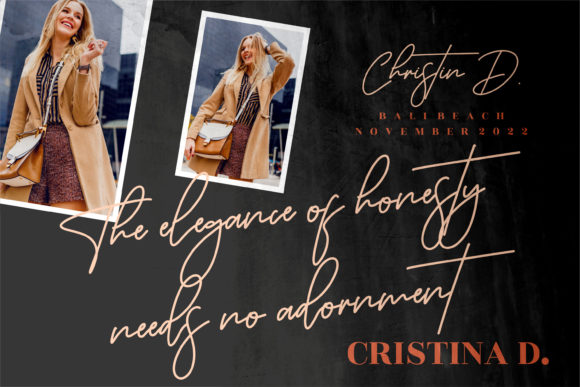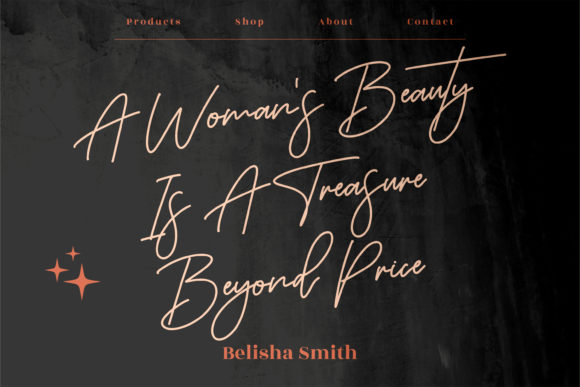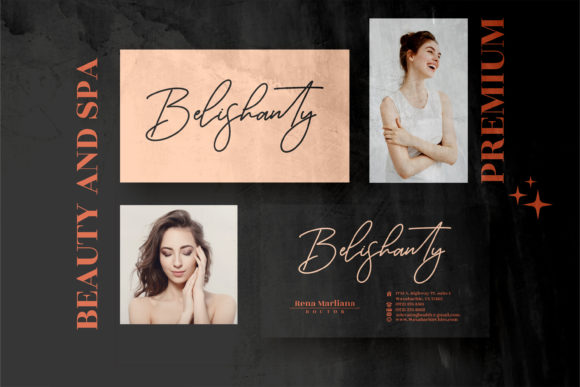
Introduction to Jhonathan Hartman Font
Jhonathan Hartman is a beautiful and refined script font.
It has a classy, elegant and modern look that can be used for logos, branding, invitations, stationery, wedding designs, social media posts, and much more Jhonathan Hartman is PUA encoded which means you can access all of the amazing glyphs and ligatures with ease.
Key Features of Jhonathan Hartman Font
Why Choose Jhonathan Hartman Font?
Jhonathan Hartman Font offers exceptional quality and versatility, making it a valuable addition to your design toolkit. Whether you’re creating for personal projects or commercial use, Jhonathan Hartman Font delivers professional results.